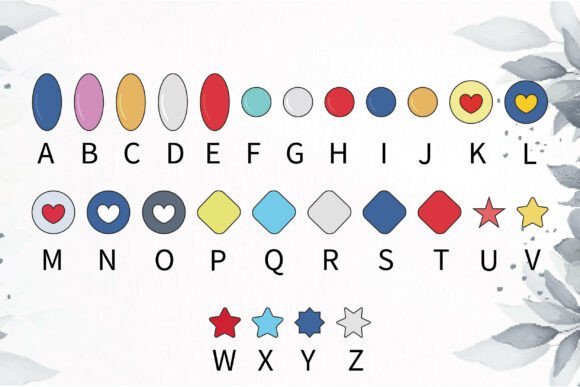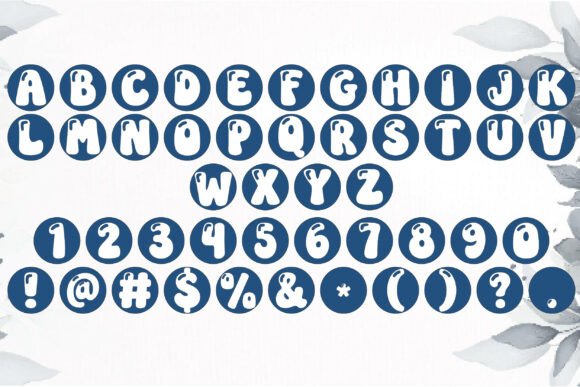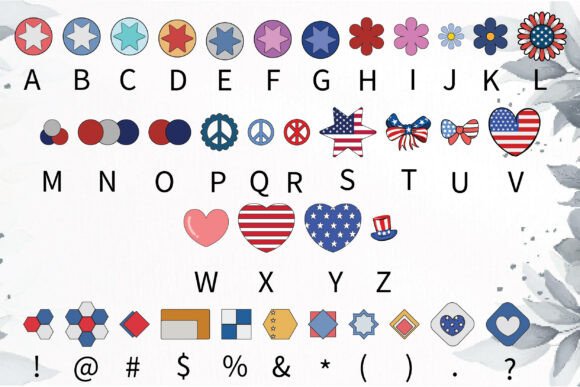
Introduction to Patriotic Bracelet Font
Have you ever found yourself in the midst of a creative project, desperately searching for the perfect design element to bring it all together? That’s exactly what happened to me when I stumbled upon the Patriotic Bracelet Font. As I was brainstorming ideas for a 4th of July celebration, I knew I needed something that would capture the spirit of the occasion without feeling too generic or overused. That’s when I discovered this adorable, hand-drawn font that’s sure to add a playful touch to any design.
As a designer, I can attest to the value of having high-quality design resources at our fingertips. The Patriotic Bracelet Font is a game-changer for anyone looking to create unique and personalized designs for summer projects. With its transparent background and free download option, this font is a must-have for any creative project.
Patriotic Bracelet Font
- High-quality design resource ideal for patriotic-themed creative projects.
- Designed with a unique, bold style that’s perfect for adding a patriotic touch to designs.
Honest Review: Patriotic Bracelet Font
I recently stumbled upon the Patriotic Bracelet Font, and I must say it’s a fantastic addition to any design resource collection. The font’s bold and playful design makes it perfect for creative projects that require a touch of patriotism and fun.
- Perfect for patriotic-themed designs, parties, and events
- Bold and playful design makes it stand out
Overall, I’m impressed with the Patriotic Bracelet Font. Its high quality and versatility make it a great addition to any design collection. If you’re looking for a fun and patriotic font, I highly recommend giving it a try.
How to Use Patriotic Bracelet Font
The Patriotic Bracelet Font is a versatile design resource that can be used in various creative projects. With its high-quality design and transparent background, this font is perfect for adding a patriotic touch to your designs.
To get the most out of the Patriotic Bracelet Font, use it in conjunction with other design elements, such as images and vectors. Common use cases include creating patriotic-themed designs, such as invitations, posters, and social media graphics.
Alternatives to Patriotic Bracelet Font
1. American Flag Font
The American Flag Font is a classic design resource ideal for patriotic and summer-themed creative projects. It features a bold and striking design with transparent background, making it perfect for use on various materials. This font is great for creating eye-catching designs for Independence Day, Memorial Day, or other patriotic events. In comparison to Patriotic Bracelet Font, American Flag Font is more versatile and can be used in a wider range of design contexts.
2. Liberty Script Font
Liberty Script Font is a high-quality, elegant script font perfect for adding a touch of sophistication to patriotic and American-themed creative projects. Its cursive design and transparent background make it ideal for use on various materials, including paper, fabric, and digital displays. When to use: For designs that require a more refined and elegant look, such as invitations, posters, or social media graphics. In comparison to Patriotic Bracelet Font, Liberty Script Font is more elegant and refined.